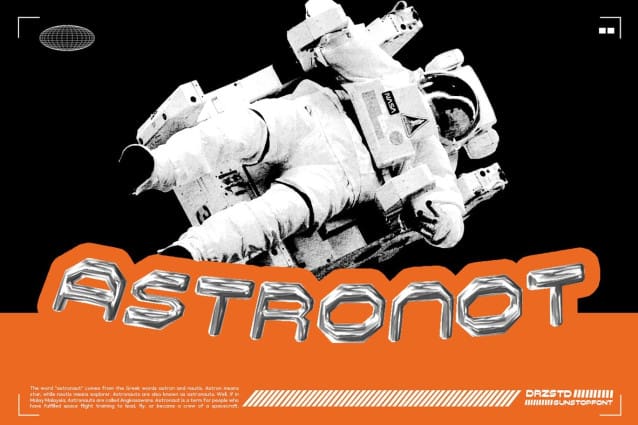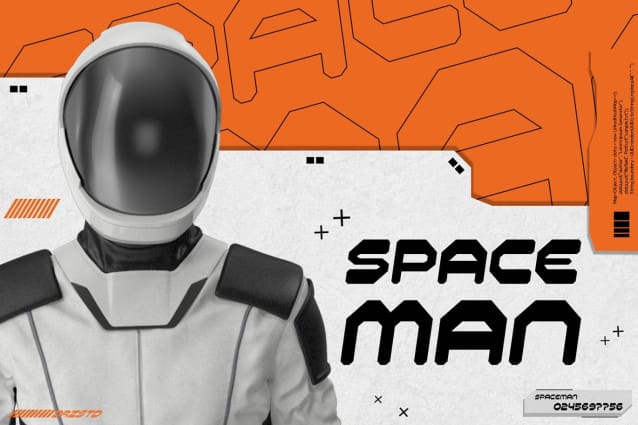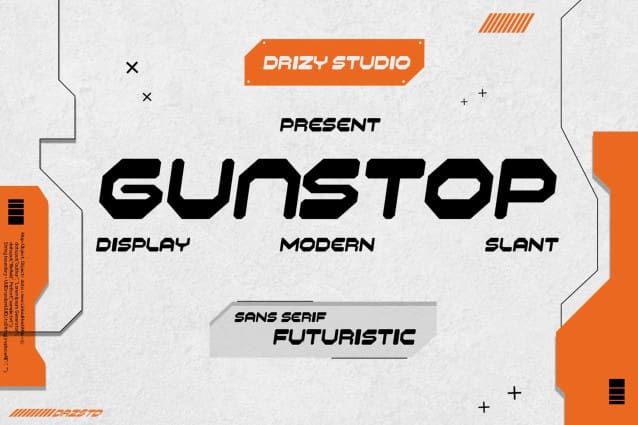
Gunstop Futuristic Font
Gunstop Futuristic Font is a modern and futuristic serif font from Drizy Studio. Offering all the styles you need for techno and modern theme projects.
Gunstop Features: Upper and lower case Punctuation and numbers Multilingual support Alternates